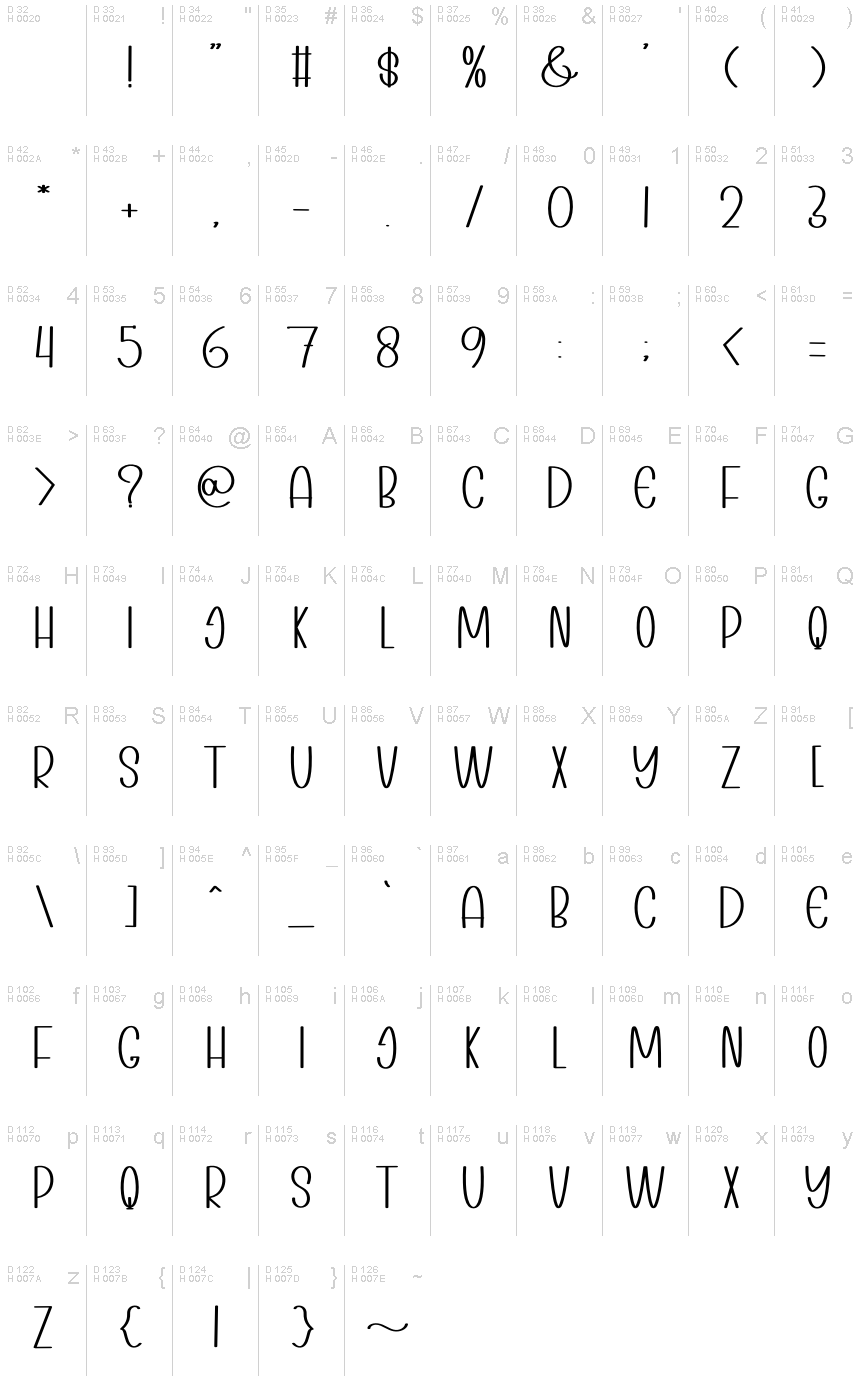
Balance
Balance, crafted by PiPi Creative, captures the essence of personal touch with its handwritten style, bringing a warm, inviting feel to any project. Its condensed letters convey a sense of intimacy and efficiency, making each character seem carefully considered. The font's fluidity suggests ease and grace, while the uniform line width adds a modern twist to the traditional handwritten appeal.
Ideal for design contexts that require both personality and space-conscious elegance, Balance shines in branding for boutique businesses, signature logos, personalized stationery, and creative advertising where a touch of human presence is key. This font marries the charm of handcrafted artistry with the sleekness of contemporary design to deliver messages with both emotional depth and refined sophistication.